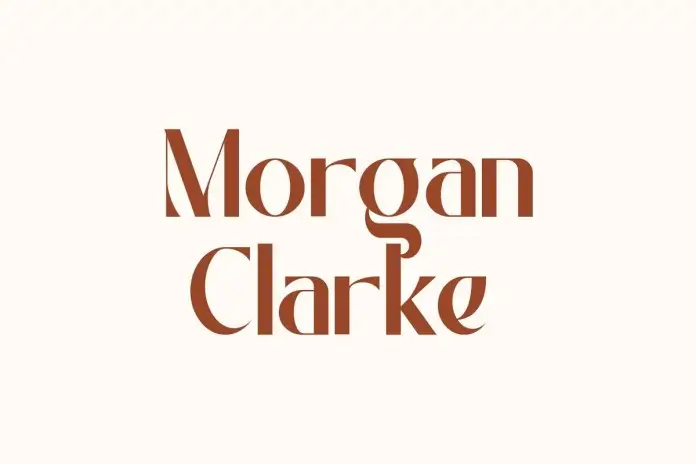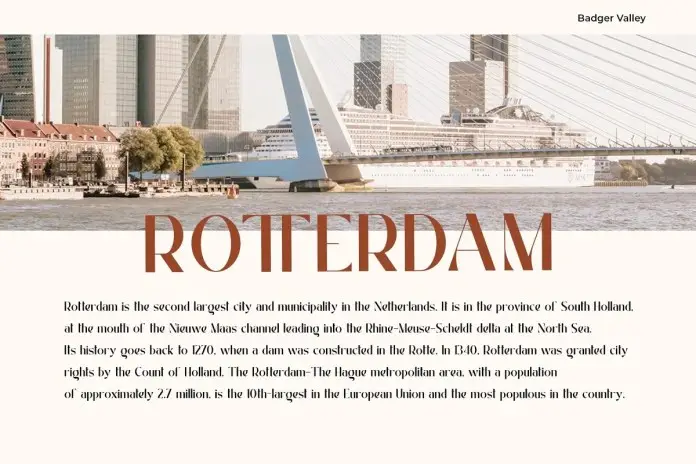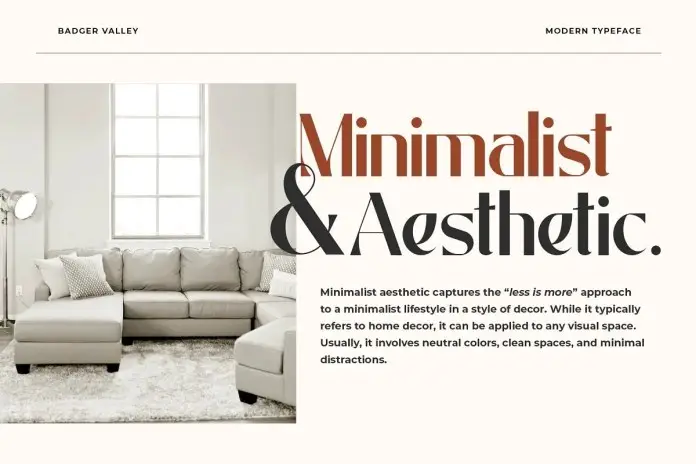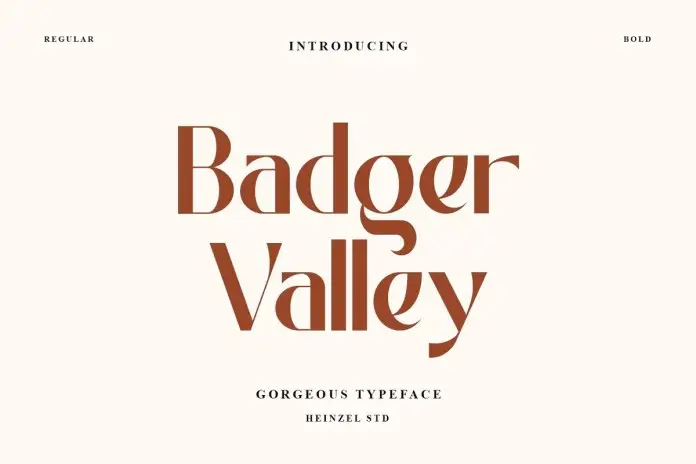
Badger Valley Sans Serif Font
Introducing the Badger Valley Sans Serif Font, a modern typeface designed for versatility and clarity. This font features a clean and contemporary aesthetic, making it perfect for a wide range of applications, from branding to digital interfaces.
• Multiple weights for flexibility in design
• Stylish, geometric shapes
• Ideal for logos, headings, and body text
• Great for web design and print materials
• Use in user interfaces for a modern look